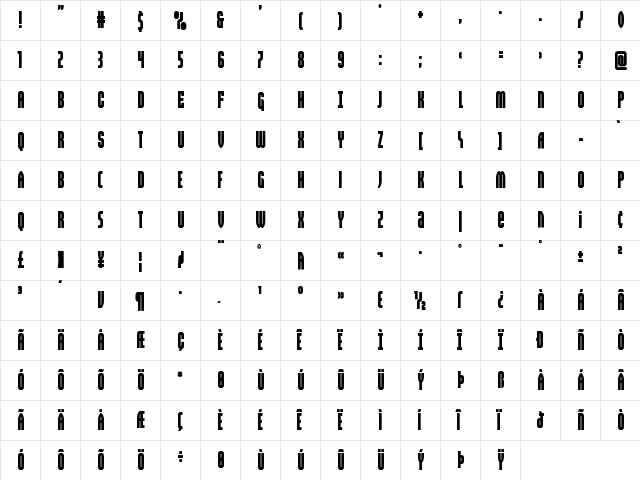
Valiant Times Condensed Regular
Design Context for Valiant Times Condensed Typeface
Valiant Times Condensed offers clean, dependable letterforms without strong stylistic allegiance, making it a practical choice for designers who need flexibility. Its narrow stance lets it pack a punch even in space-constrained designs.